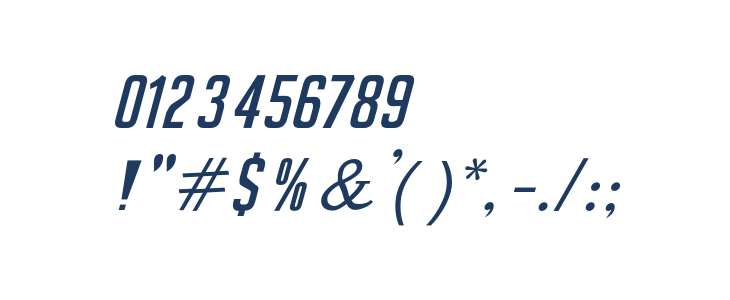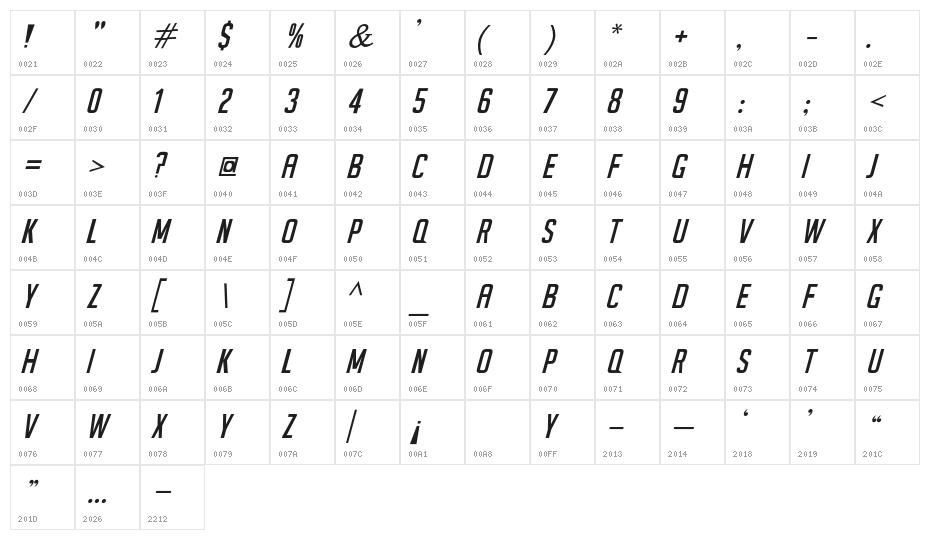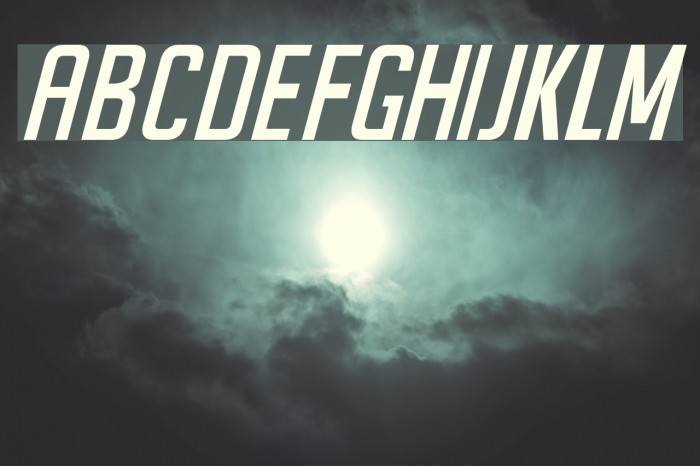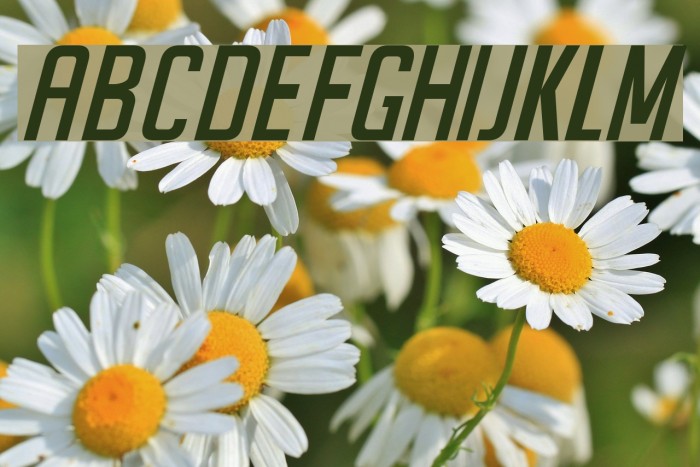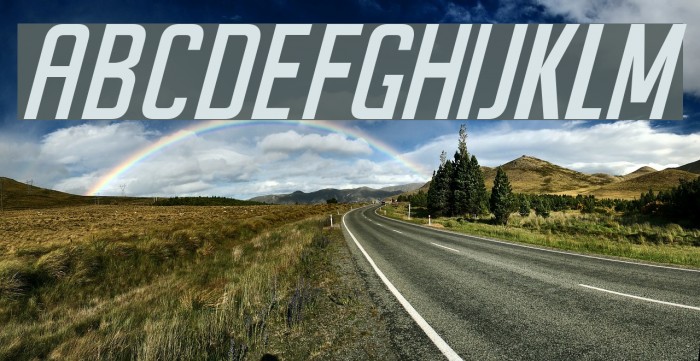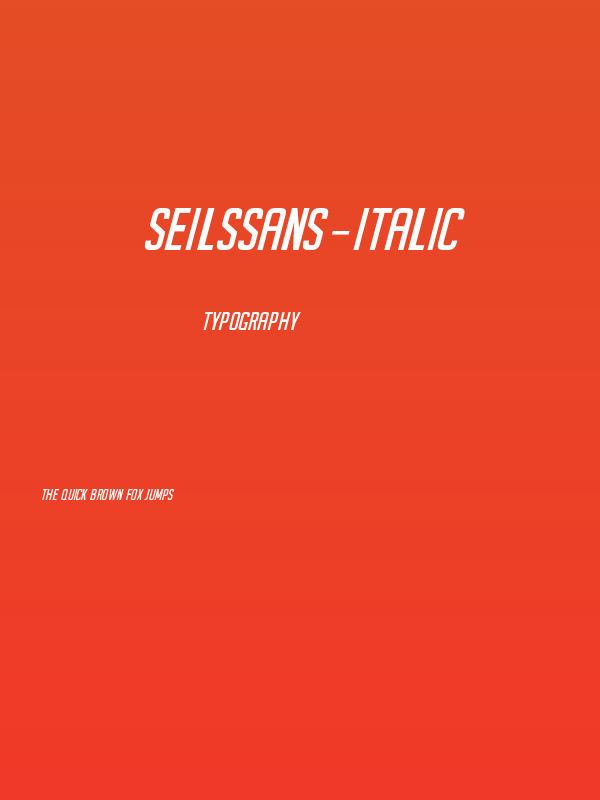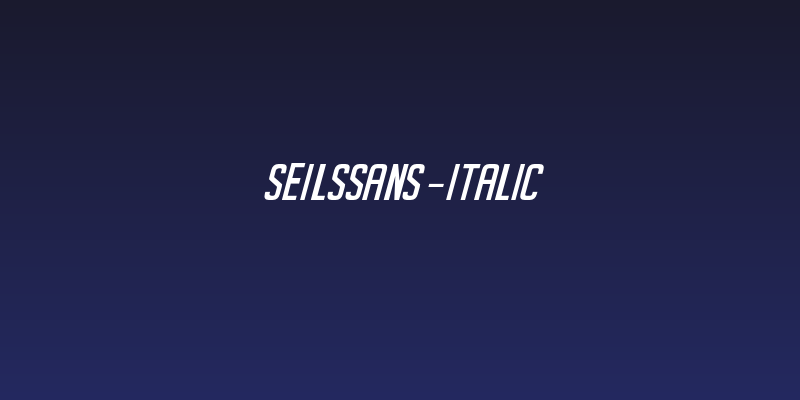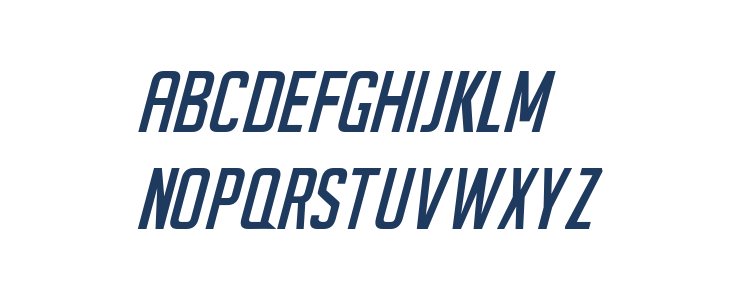
SeilsSans-Italic Font
SeilsSans-Italic Description
This font exhibits a sleek and modern design with a distinct italic slant, giving it a dynamic and forward-moving appearance. The characters are elongated and slightly condensed, contributing to a streamlined look. The strokes are consistent in weight, providing a uniform and cohesive feel across all characters. The uppercase and lowercase letters maintain a harmonious balance, while the numerals are clear and legible. Special characters are well-integrated, enhancing the font's versatility. Overall, this font's style is both contemporary and professional, making it suitable for a variety of design applications.
| Proposed Projects | Ideal for branding, advertising, and editorial design projects where a modern and dynamic look is desired. |